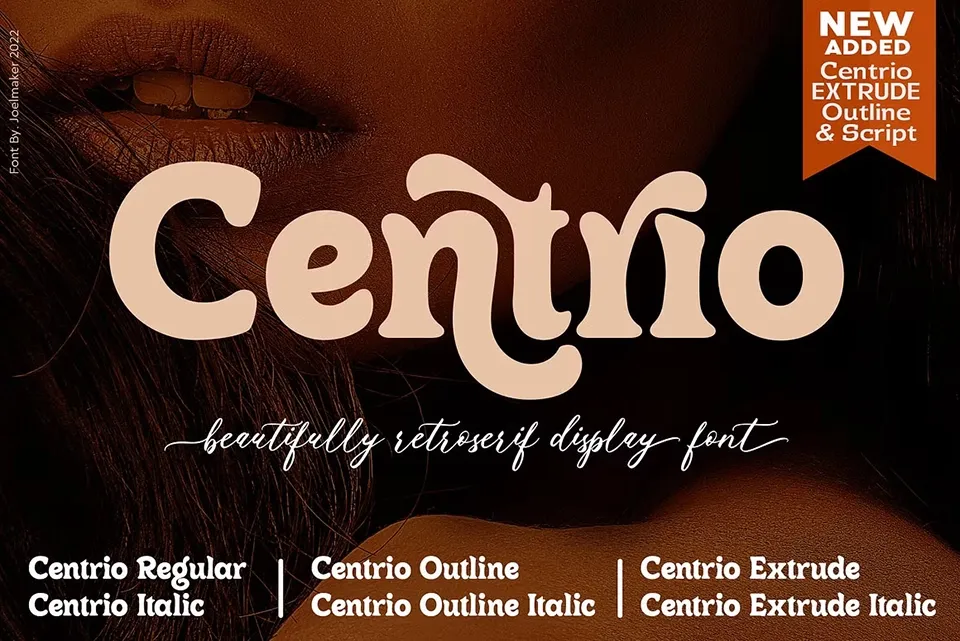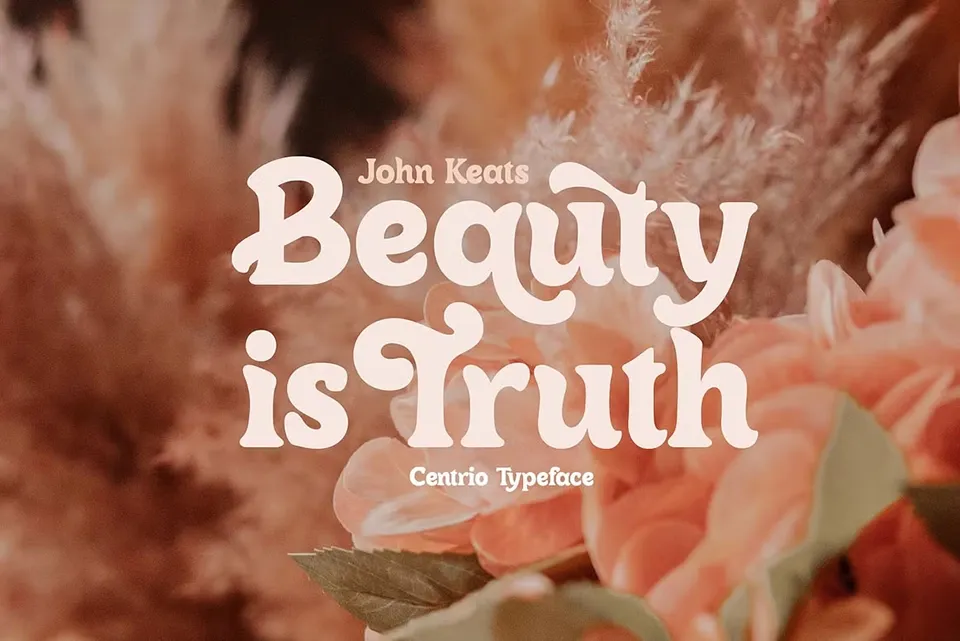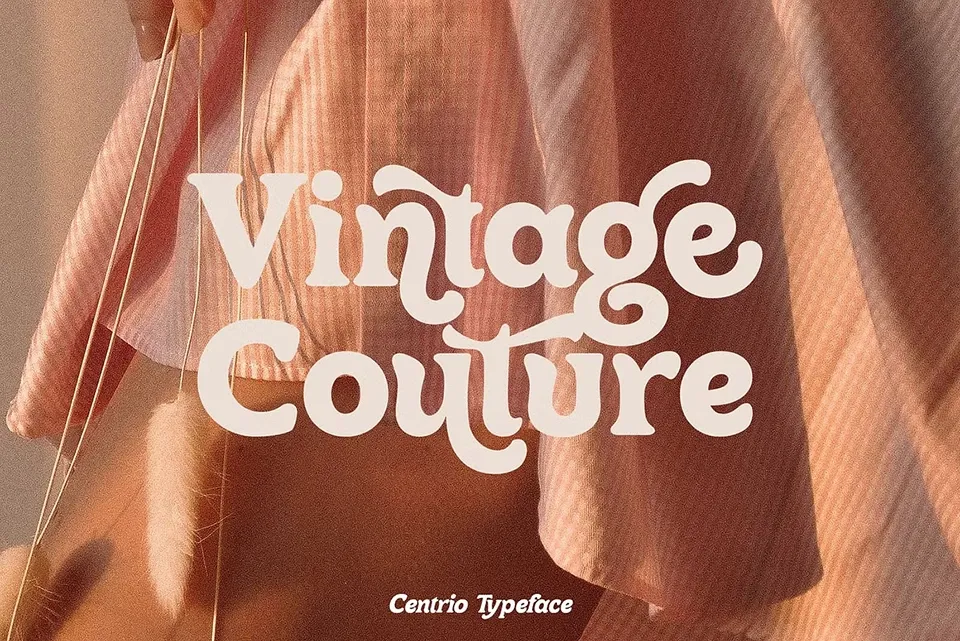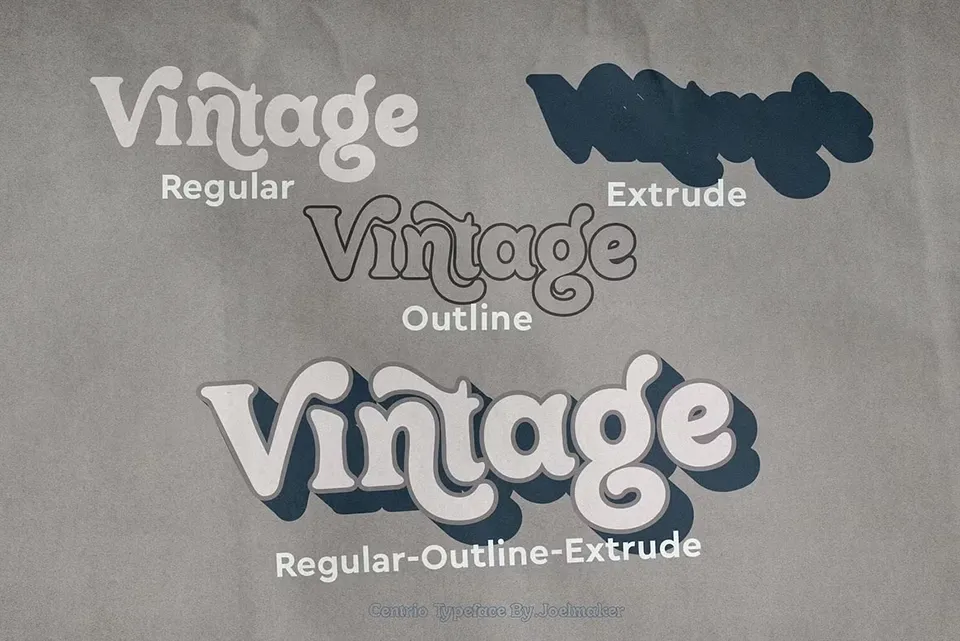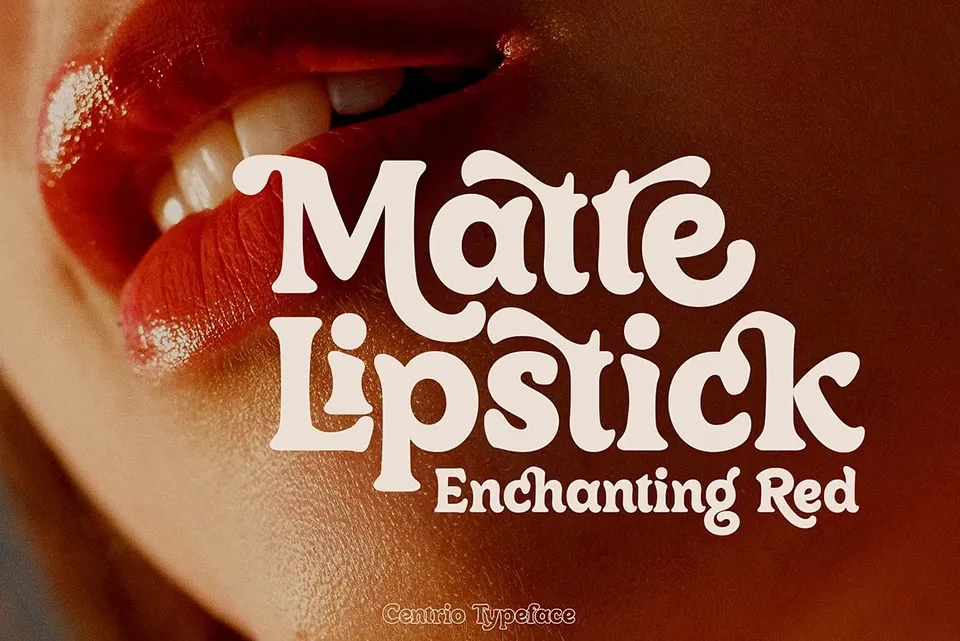
Centrio Font
Centrio Font is a beautifully retro serif display typeface that combines vintage charm with modern versatility. Its bold, curvaceous letterforms exude elegance and personality, making it ideal for branding, packaging, headlines, and editorial design. Centrio offers multiple styles, including Regular, Italic, Outline, Extrude, and Script variations, providing designers with creative flexibility to craft unique compositions. The font’s distinctive swashes and smooth curves add a touch of sophistication while maintaining readability. Whether used for bold statements or subtle accents, Centrio Font brings timeless appeal to any project, ensuring your designs stand out with a refined and artistic flair.